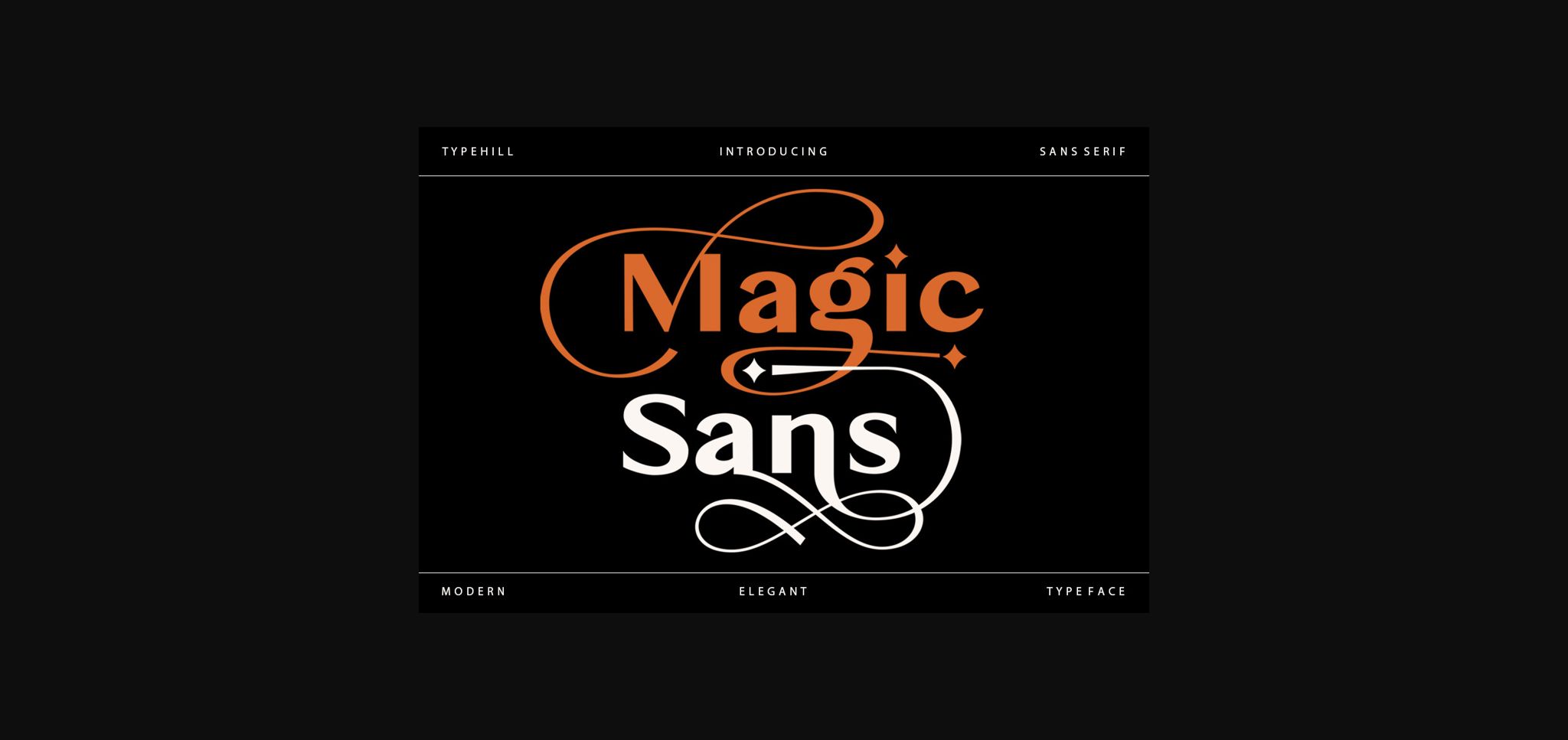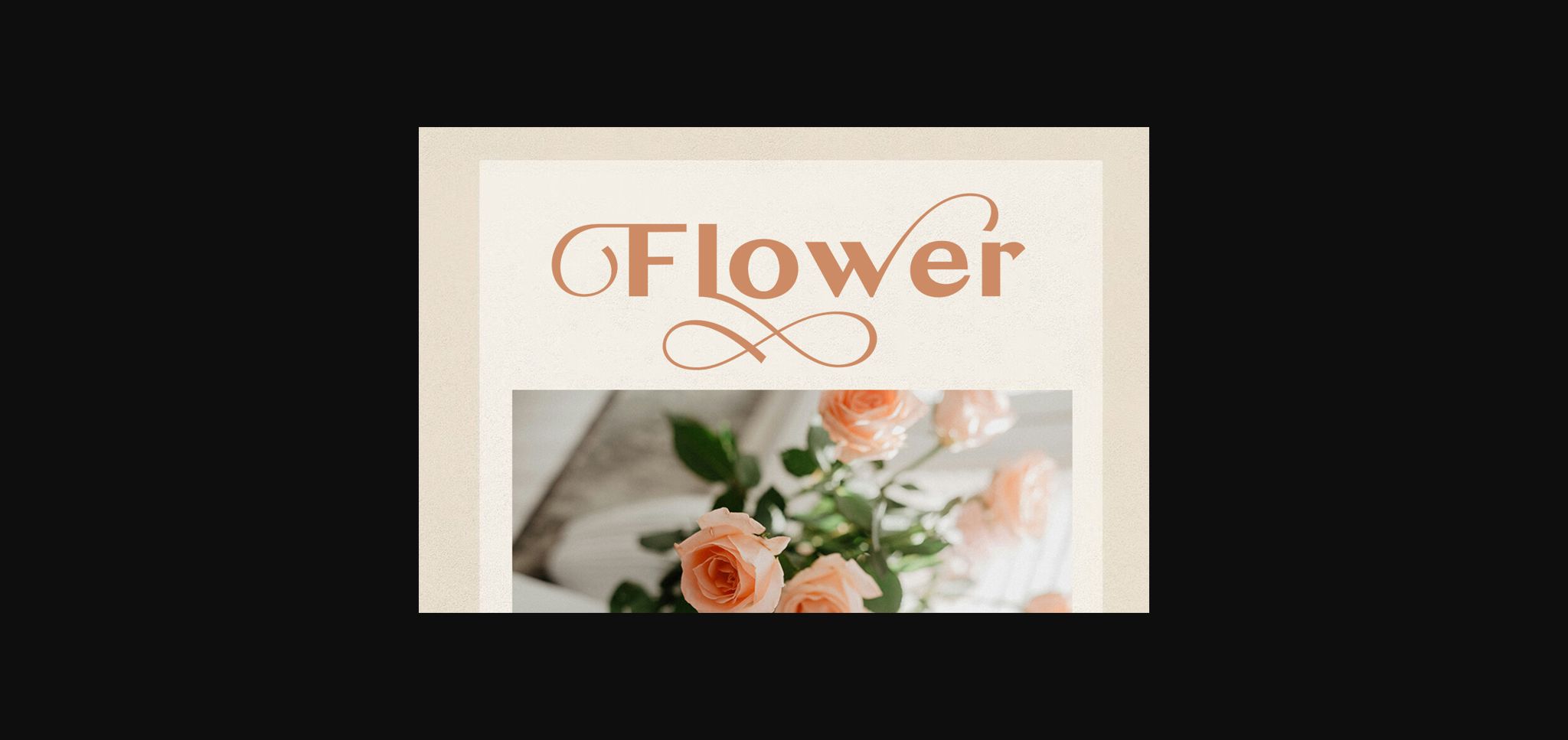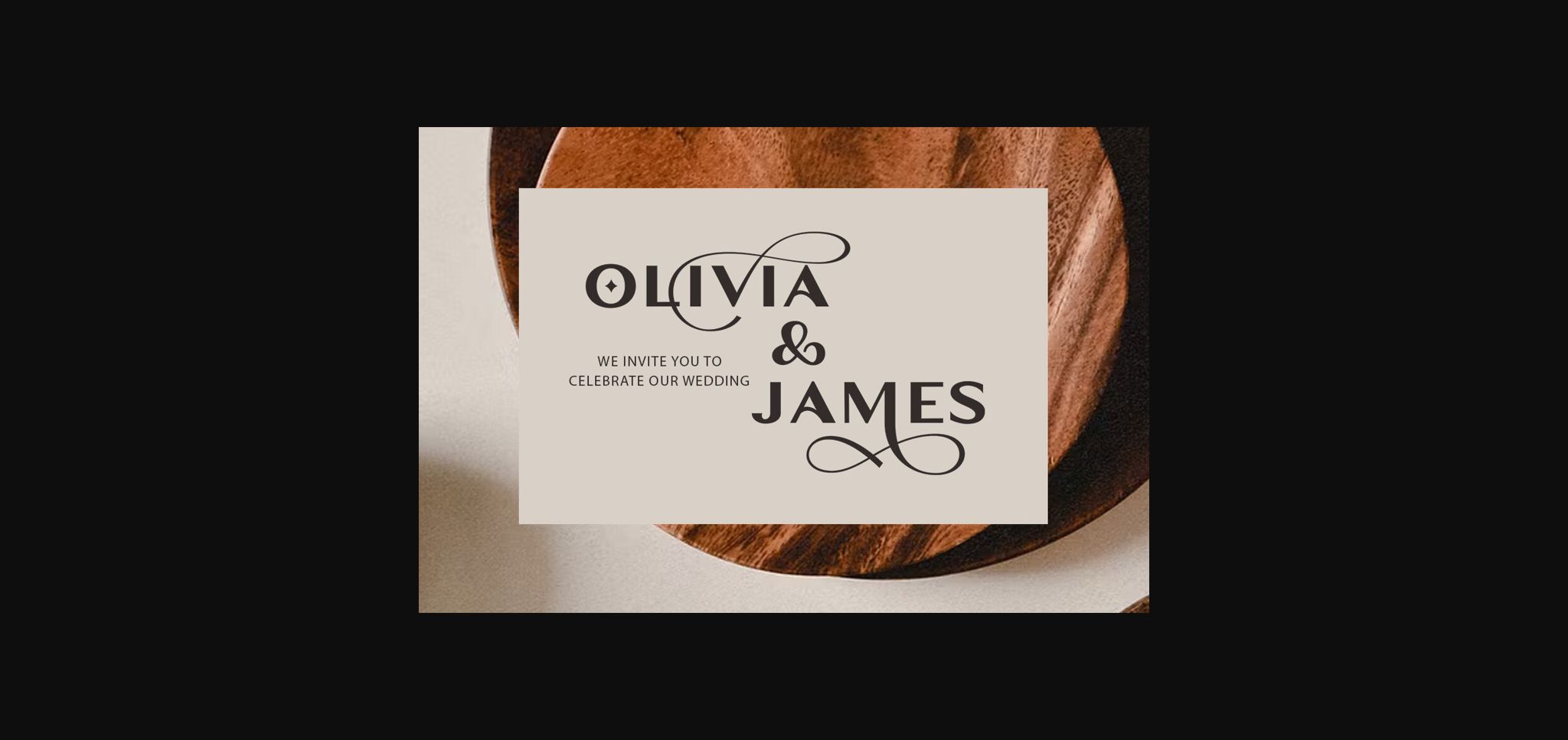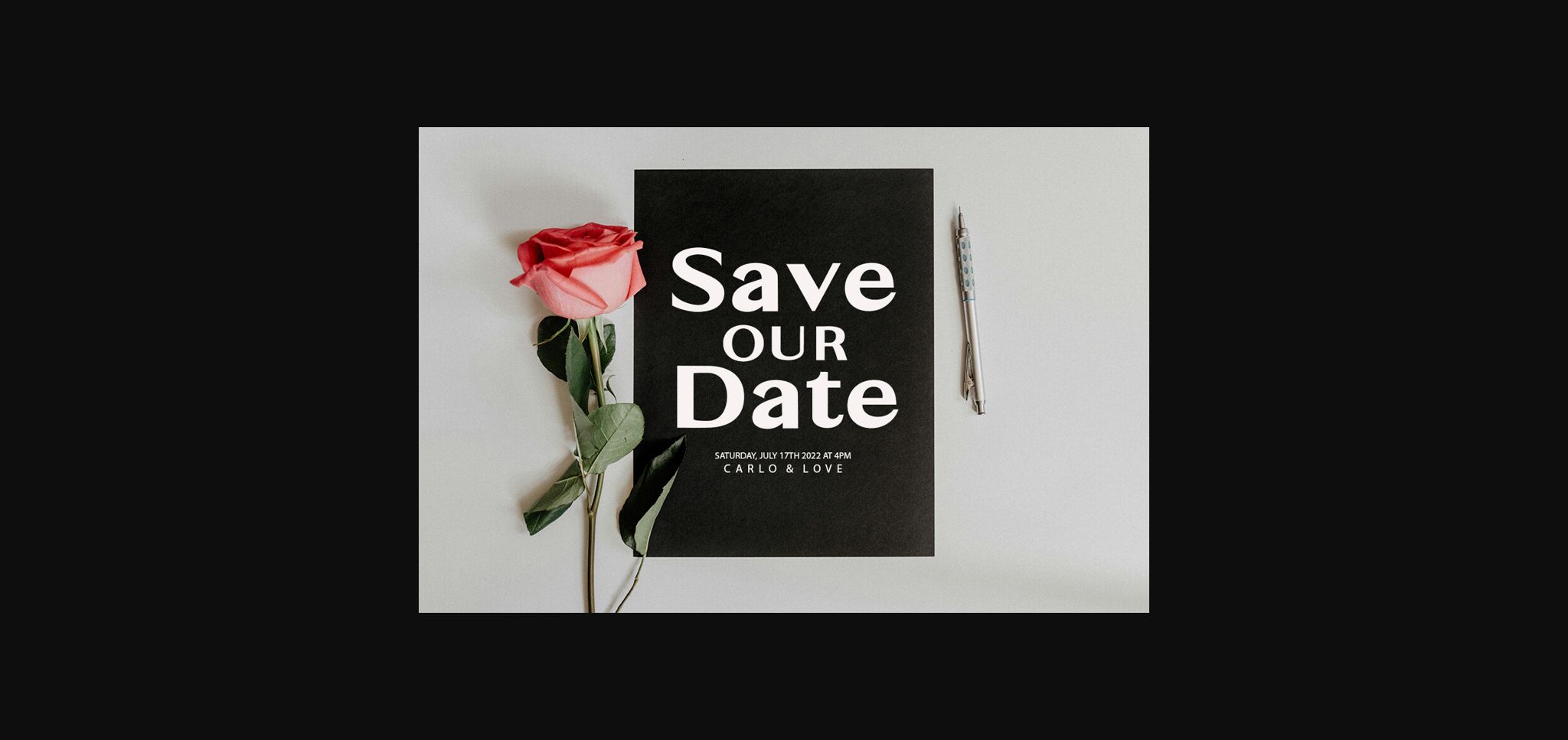
About Magic Sans Font
Magic Sans attracts a typeface that is smooth, clean, unique, elegant, modern, feminine, sensual, glamorous, simple and very easy to read. Classic style is very suitable to be applied in various formal forms such as invitations, labels, menus, logos, fashion, make up, stationery, letterpress, romantic novels, magazines, books, greeting/wedding cards, packaging, labels.